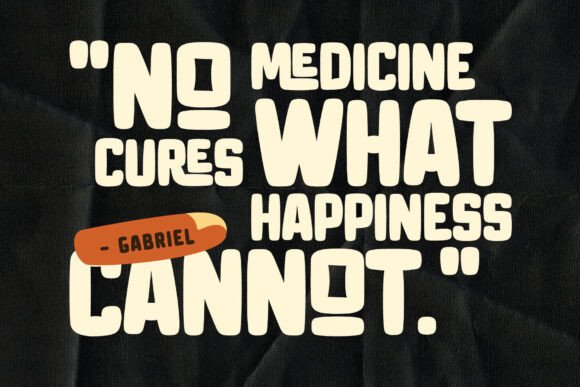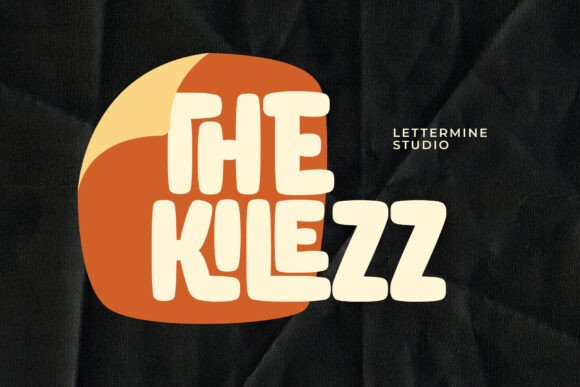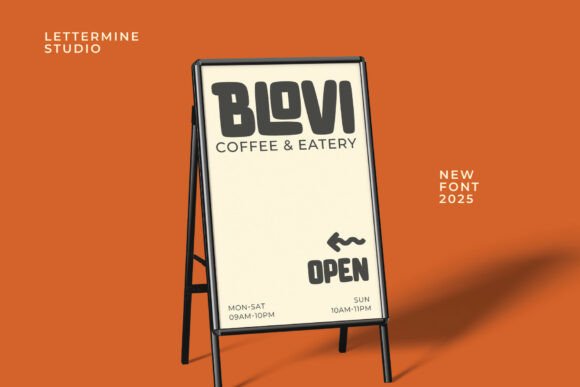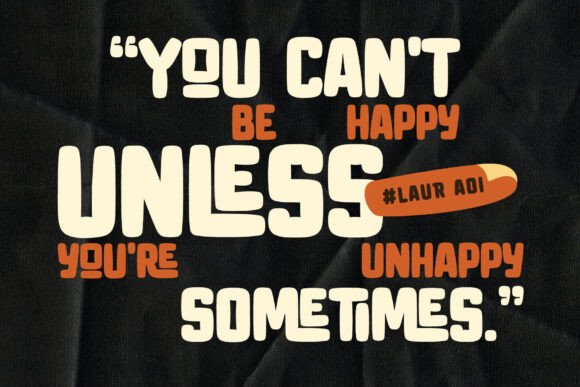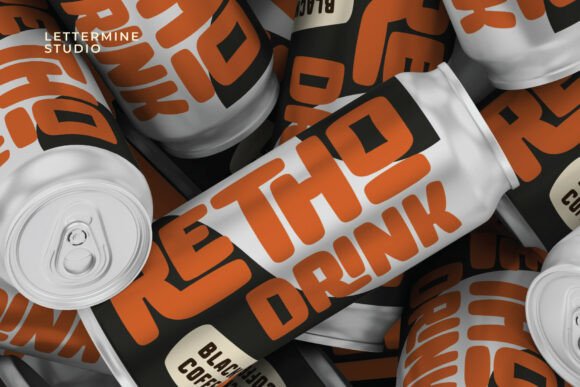
Adding a Pinch of Personality to Your Designs
Have you ever stared at a blank canvas, trying to come up with the perfect font to capture the essence of your creative project? You’re not alone. Many designers face this challenge daily, searching for that one font that will elevate their work and leave a lasting impression. For those seeking a font that embodies fun and playfulness, the solution lies in the bold display font known as Blovi Core.
Blovi Core Font is specifically designed to bring a smile to the faces of your audience, making it perfect for packaging, menus, logos, and various creative projects. Its chunky, rounded letterforms exude a cheerful and friendly vibe, adding character and visual appeal to every word you type. Whether you’re a seasoned designer or a budding artist, Blovi Core Font is a valuable addition to your toolkit, offering endless possibilities for creative expression.
Blovi Core Font Key Features
- Character Set: The font features a comprehensive character set, including Latin, Cyrillic, and Greek alphabets, as well as a wide range of punctuation marks and symbols.
- Unique Characteristics: The font’s distinctive rounded edges and smooth curves make it ideal for use in digital media, such as websites, mobile apps, and video games.
Blovi Core Font Review
Overall, I think the Blovi Core Font has some nice qualities, but it’s not perfect. Let’s dive in.
- Unique style: Blovi Core Font has a distinct personality that sets it apart from other fonts.
- High legibility: The font is easy to read, even at smaller font sizes.
- Good for body text: Blovi Core Font works well for large blocks of text, such as articles or blog posts.
- Limited scalability: The font can become distorted at very large or very small font sizes.
- Not ideal for headings: Blovi Core Font is better suited for body text and may not be the best choice for headings or titles.
- Lack of italic or bold variants: The font is available in regular and bold weights, but not italic, which can limit its versatility.
Overall, I think the Blovi Core Font is a solid choice for body text, but it may not be the best fit for more complex designs or situations where scalability is a concern. With a bit more development, it could be a top contender in the font world.
Getting the Most Out of Blovi Core Font
Use Blovi Core Font to create unique and memorable designs.
Pair it with bold colors and contrasting backgrounds to make your design stand out.
Experiment with different font sizes, styles, and combinations to add visual interest.
Blovi Core Font is perfect for:
Creating bold and eye-catching headings.
Designing modern and minimalist logos.
Adding a touch of elegance to your typography.
Alternatives to Blovi Core Font for Designers
Open Sans is a clean and modern sans-serif font designed by Steve Matteson. It is ideal for digital products, websites, and applications where readability is crucial. Open Sans is more versatile and has a wider range of weights compared to Blovi Core Font.
Comparison to Blovi Core Font: Open Sans is more neutral and easier to read in small sizes, making it a better choice for digital products.
Lato is a modern sans-serif font designed by Łukasz Dziedzic. It is perfect for branding and packaging designs where a unique and stylish font is required. Lato has a more elegant and refined feel compared to Blovi Core Font.